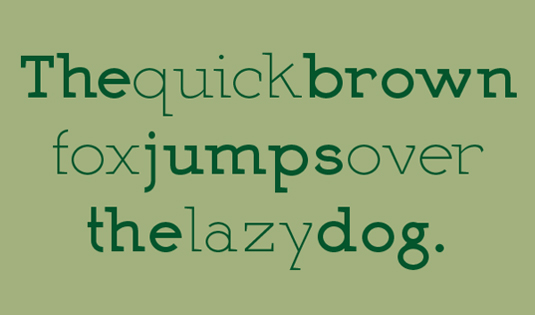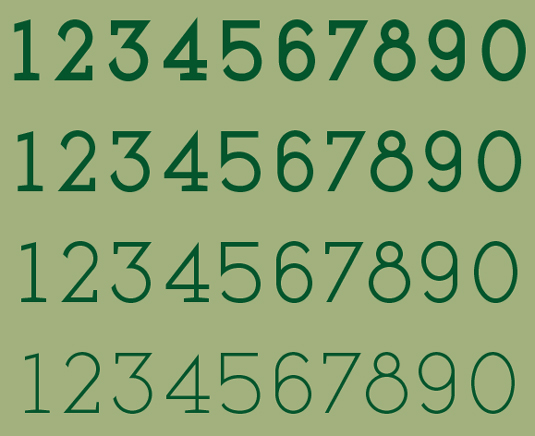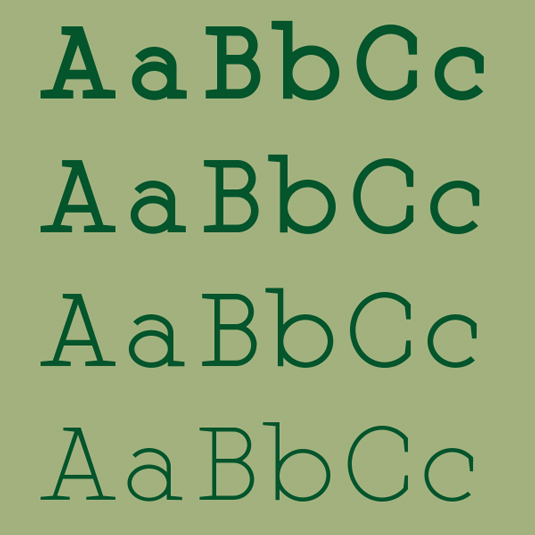
Font of the day: Martell
Martell by Adrian Candela
Today's font of choice is Martell, by graphic designer Adrian Candela. "Martell is a slab font, great for display purposes as well as for mid sized texts," he says. "It comes in four weights: light, regular, bold and black."